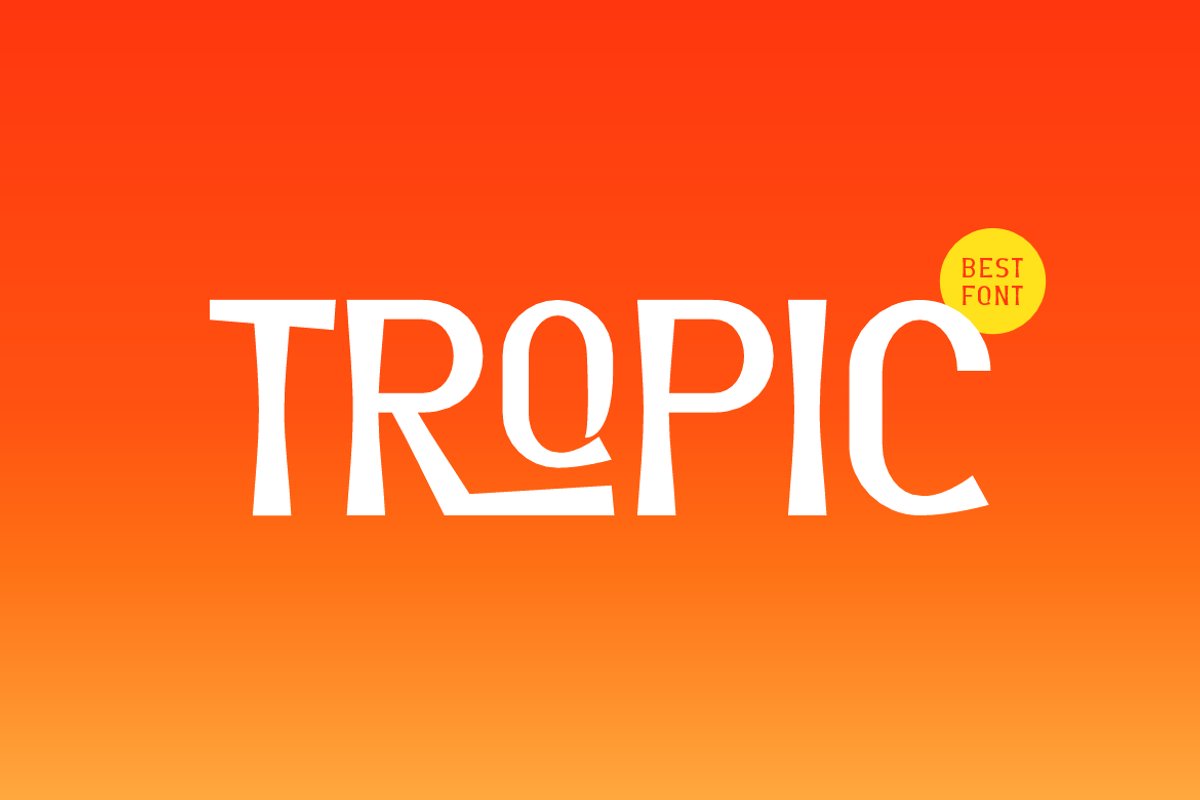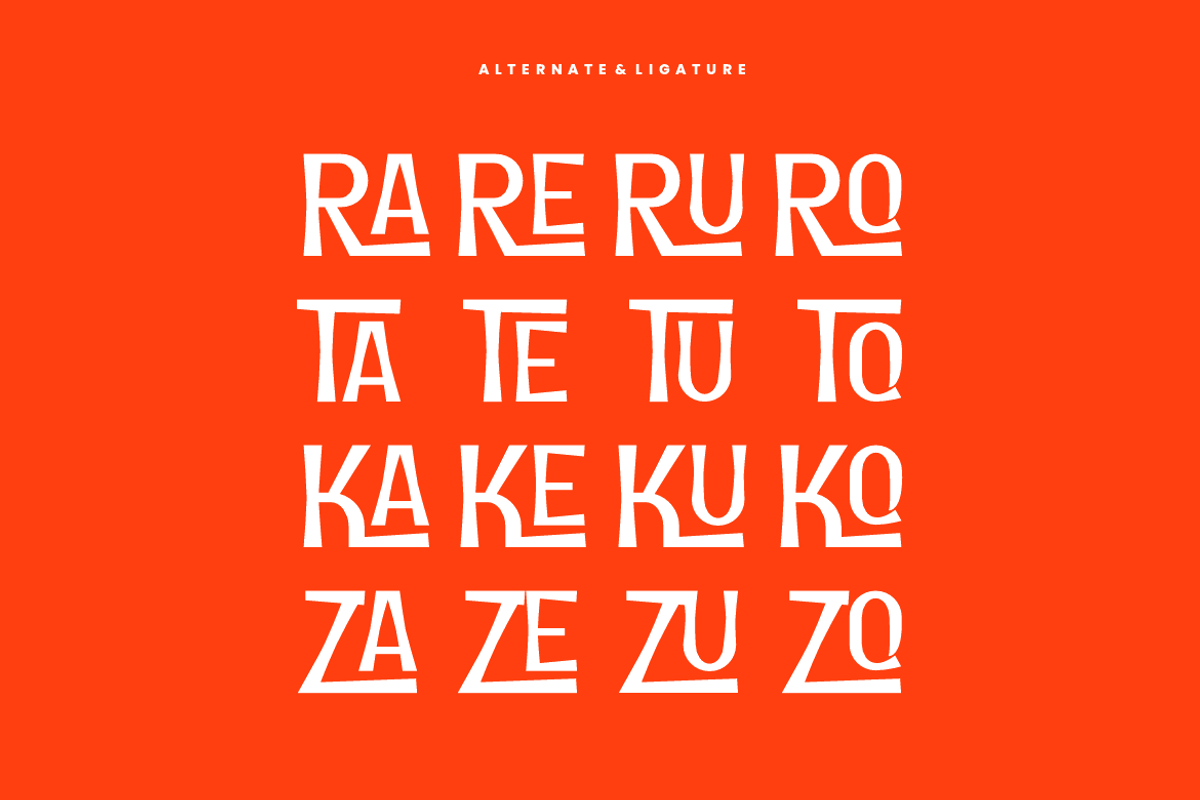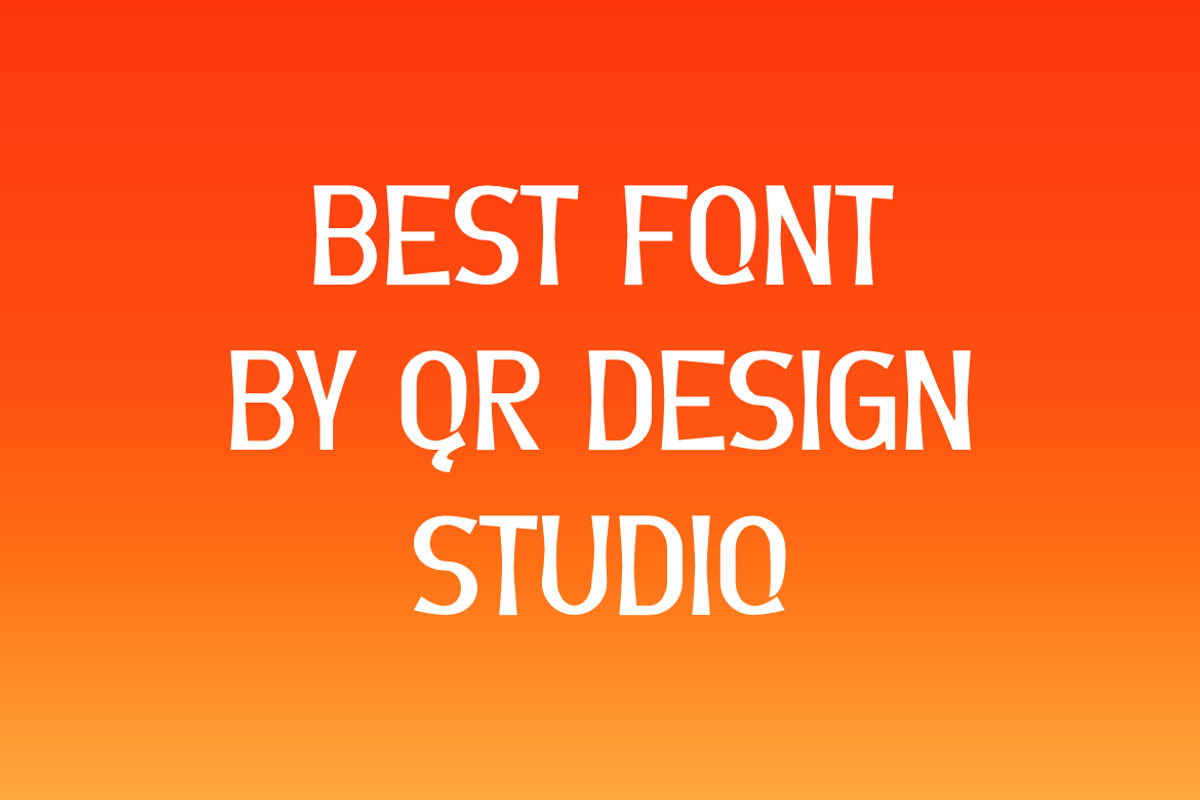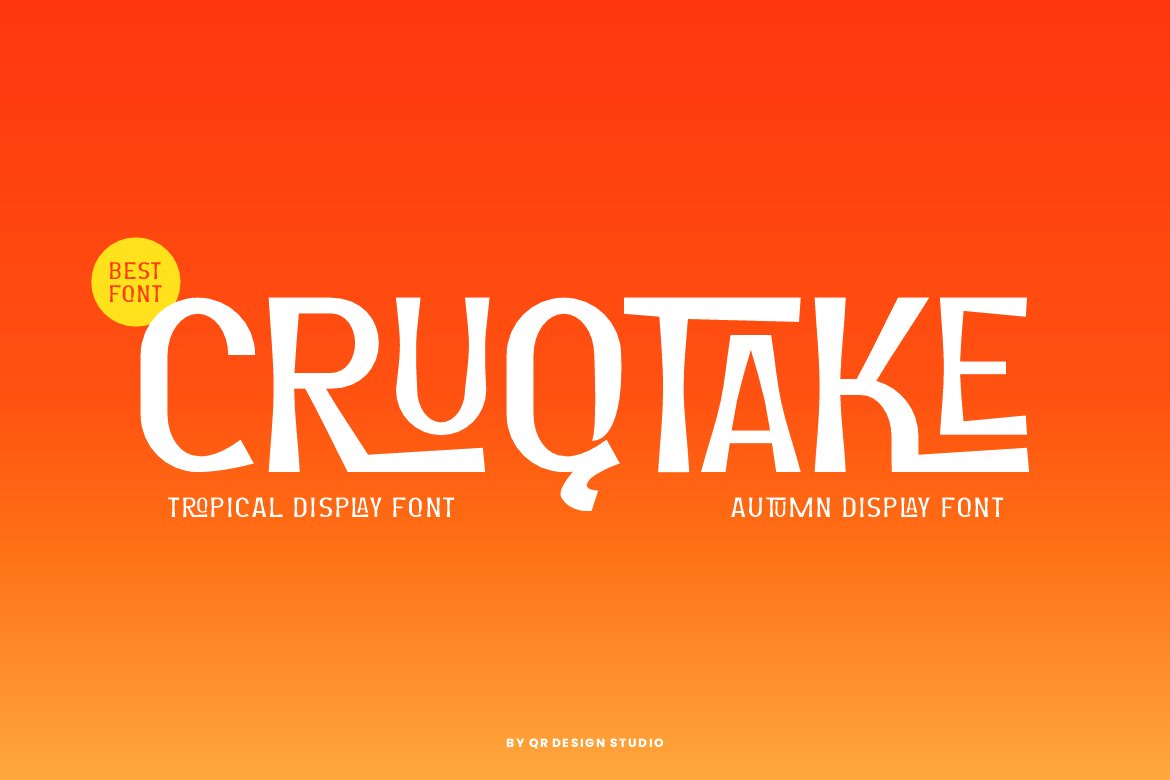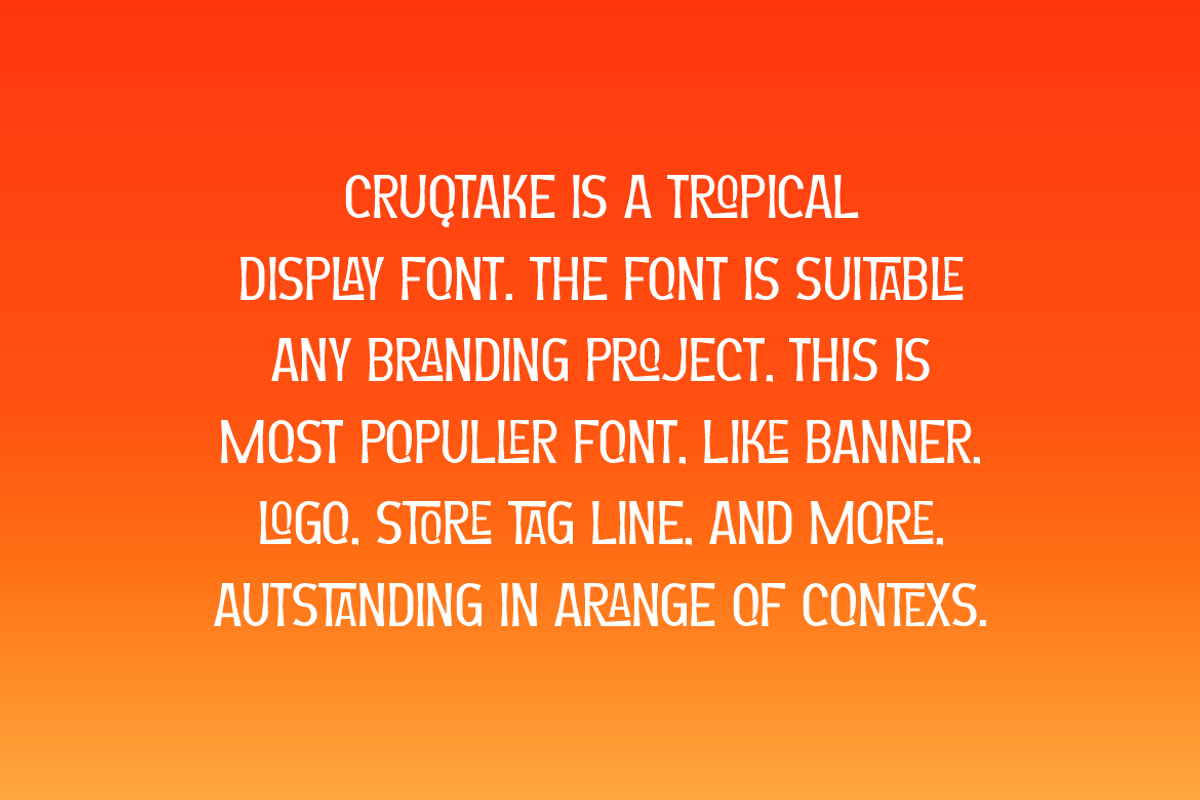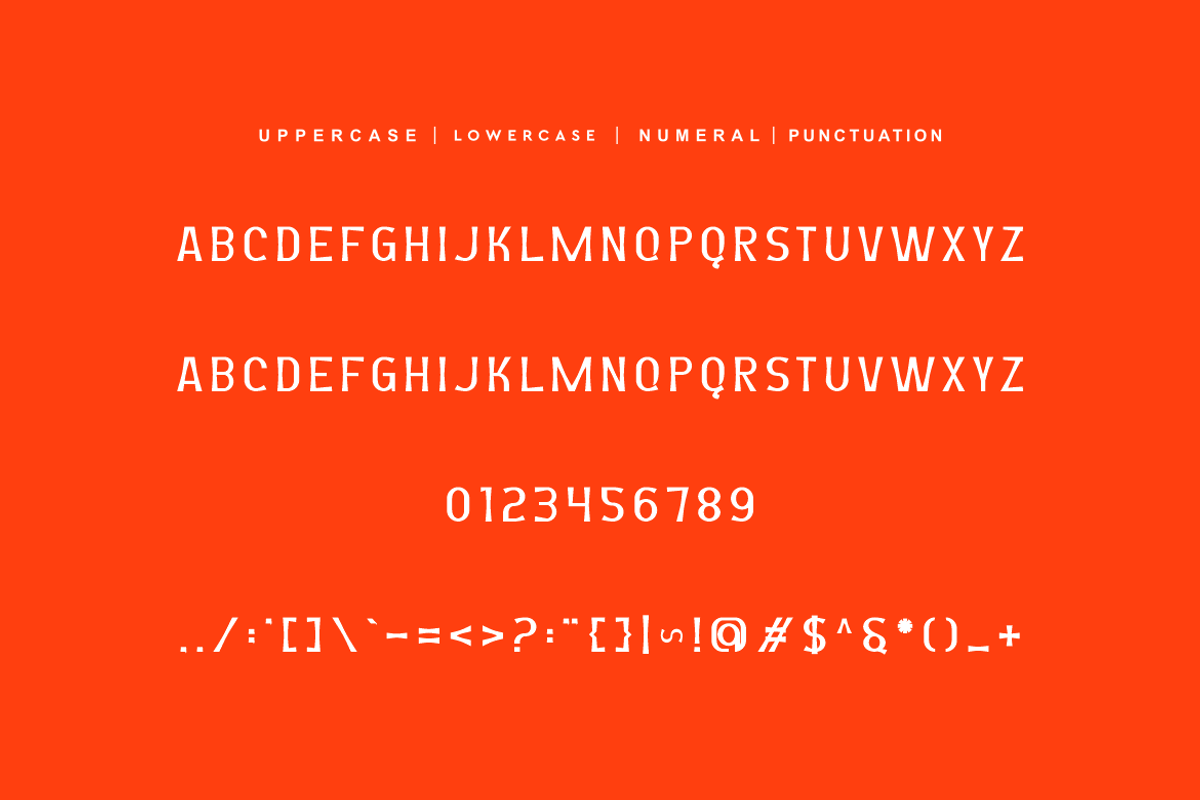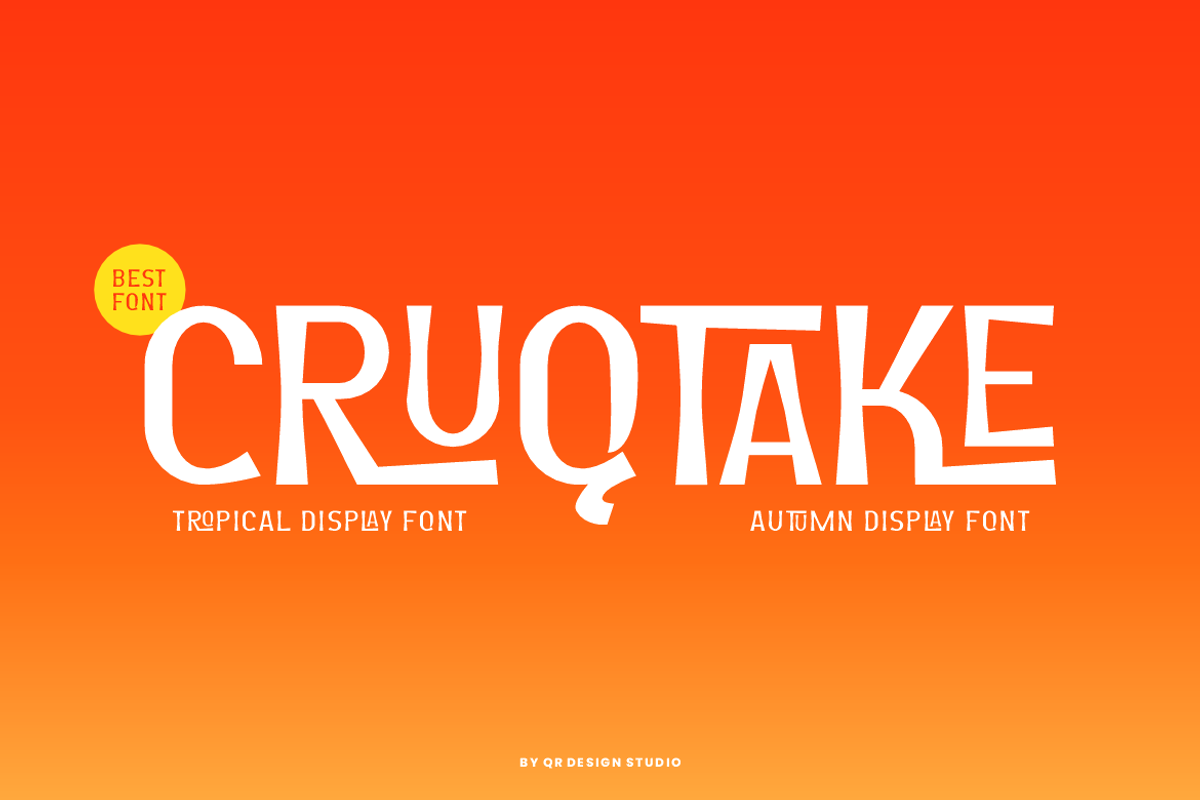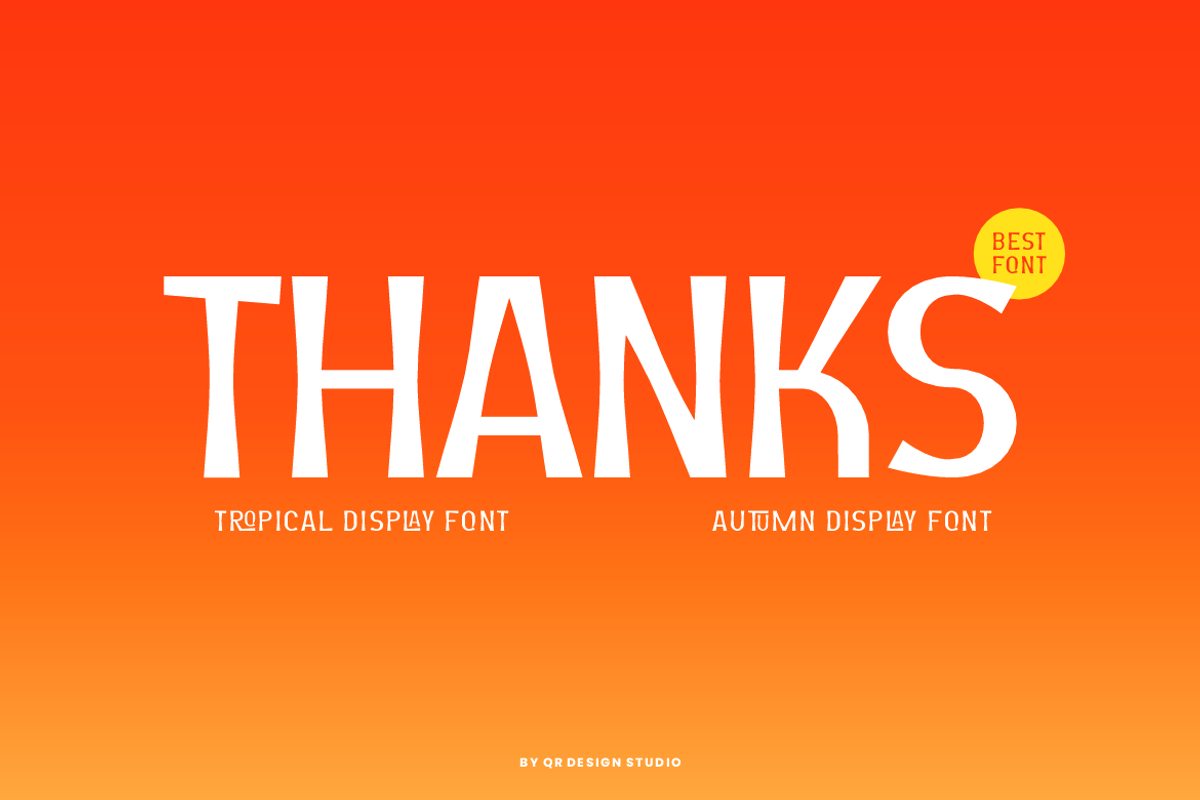
Cruqtake - Tropical Font
Cruqtake Font is a tropical and authentic display font. The font is suitable for any branding project like poster, logo, sport, and many more. Outstanding in a wide range of contexts.